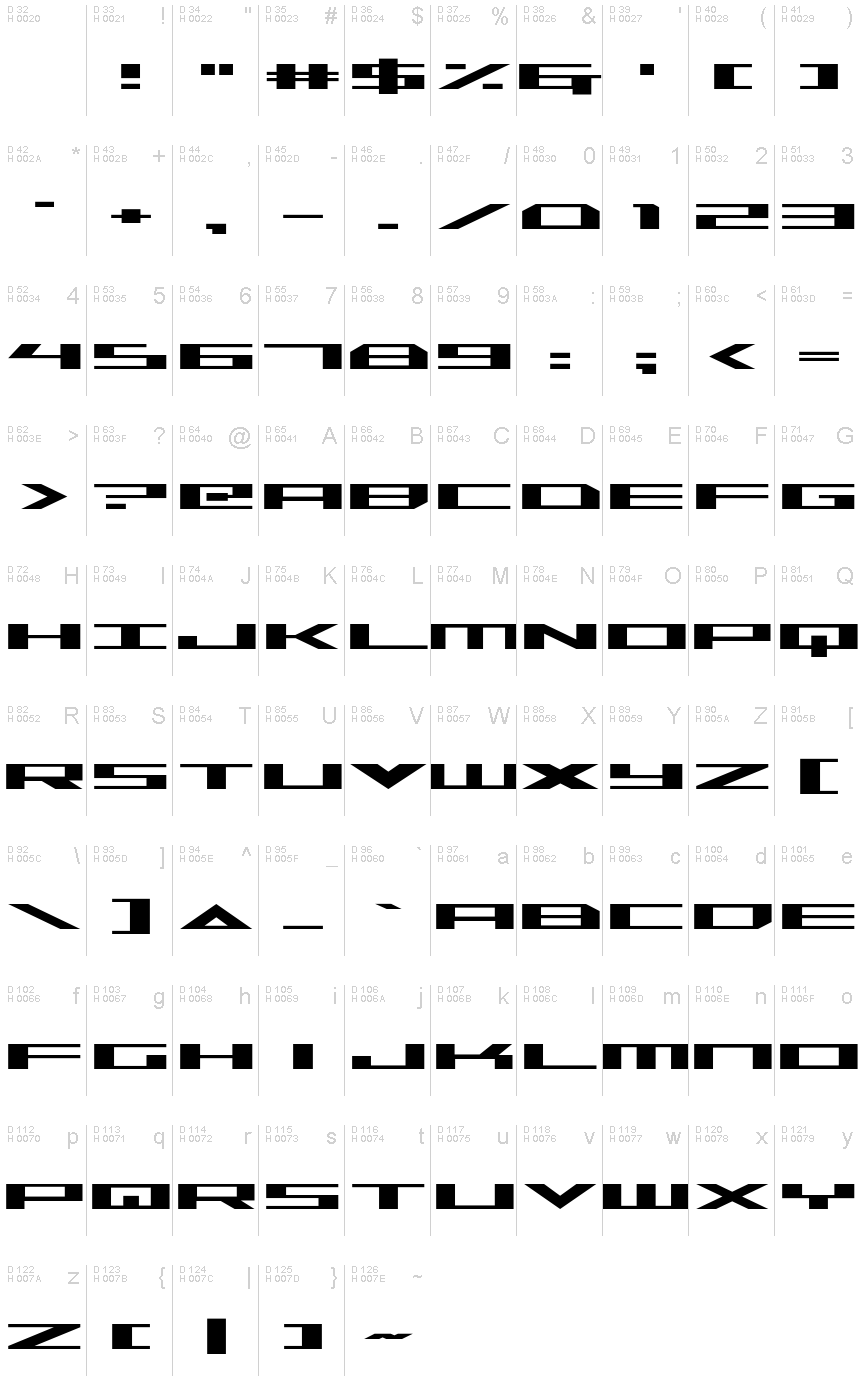
Trireme Expanded by Daniel Zadorozny of Iconian Fonts is a free expanded techno display font with an exceptionally wide, low profile. Squared forms feature crisp horizontal breaks and open joins. The lettering feels engineered and futuristic.
Science-fiction themes make it a natural fit for game graphics and film titles. Its broad silhouette also suits album covers and motorsport branding, where the letters resemble dashboard labels or vehicle badges. Repeated slots and hard turns tie these uses to interfaces, machinery, and industrial technology.